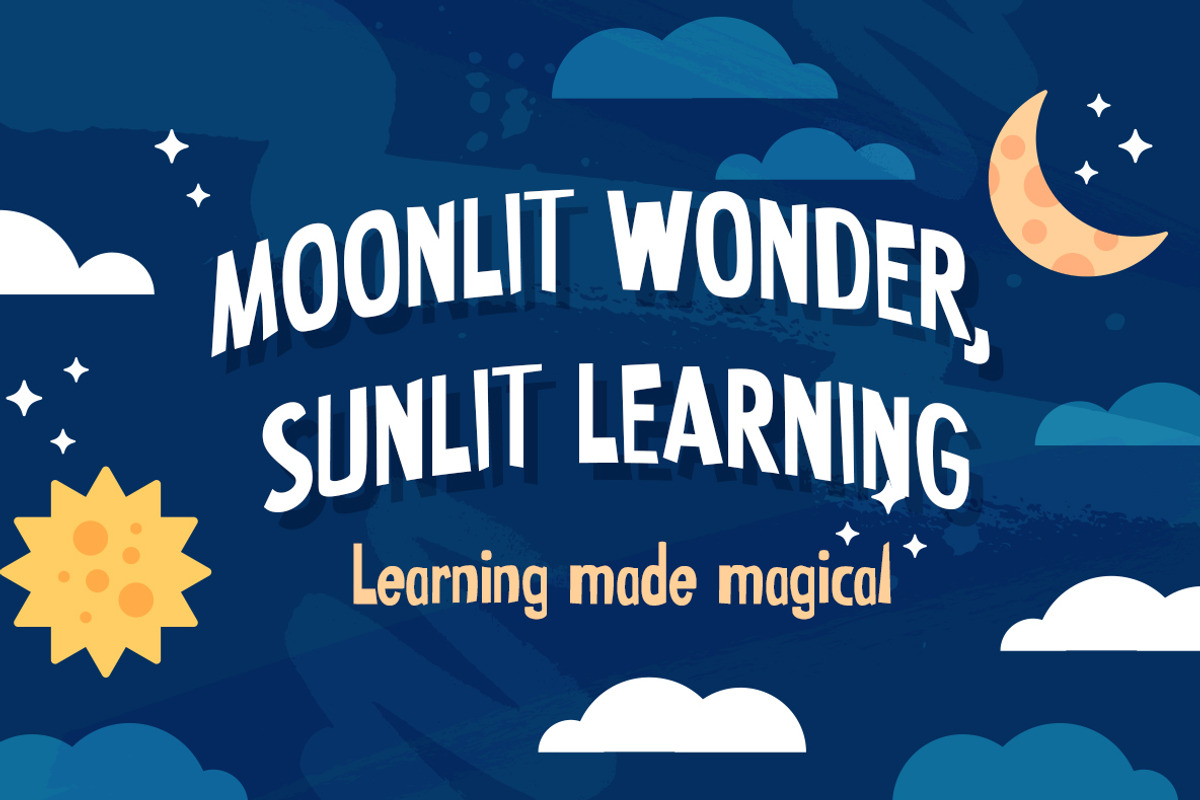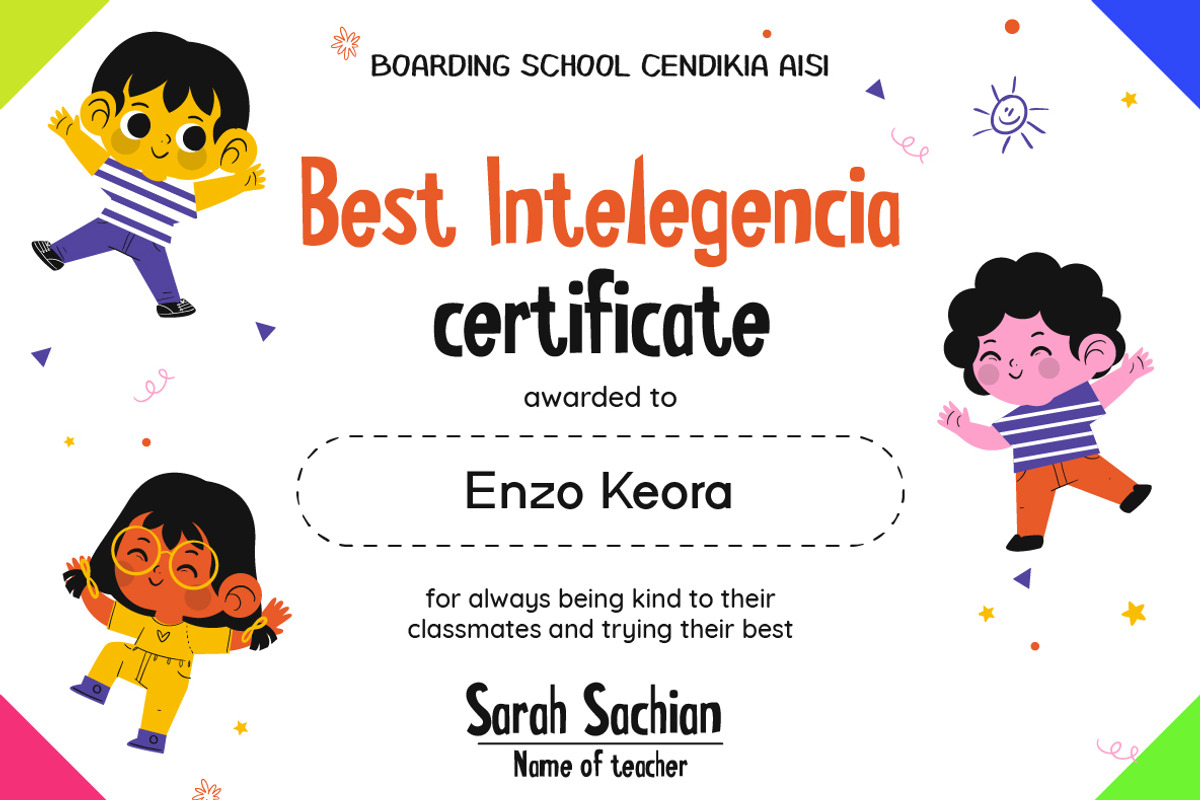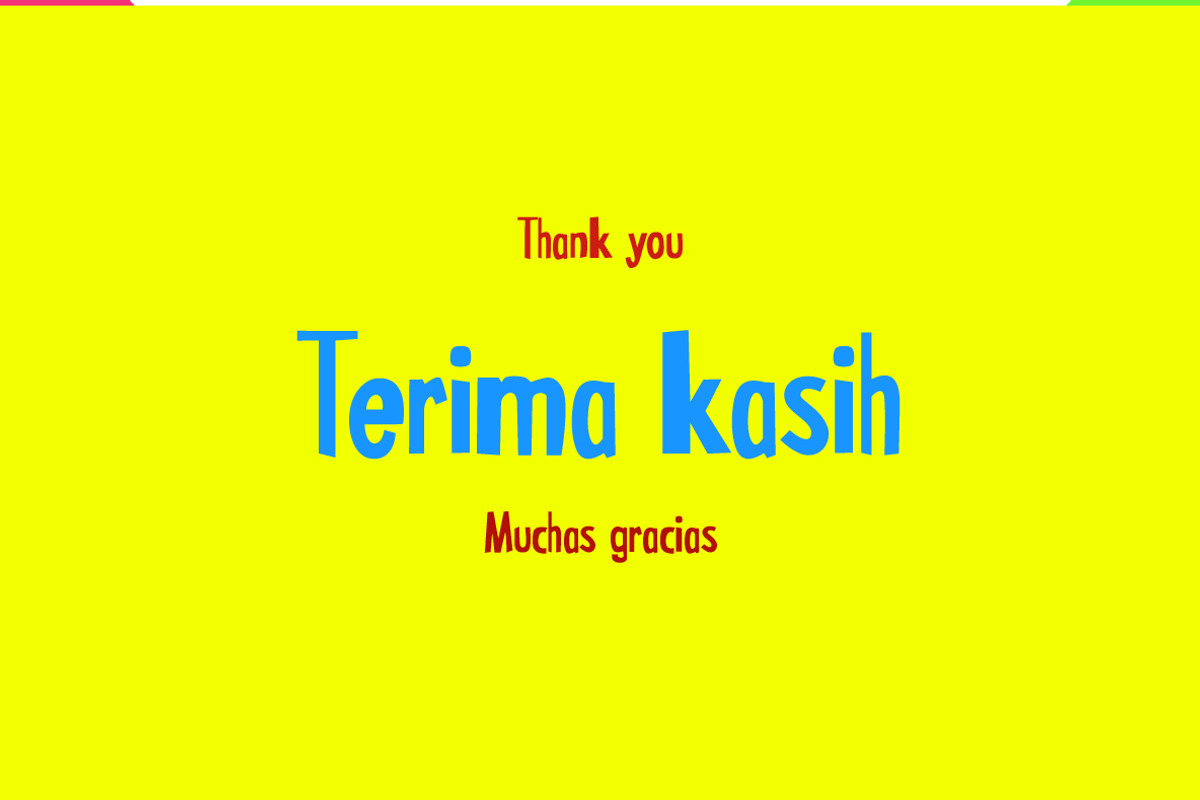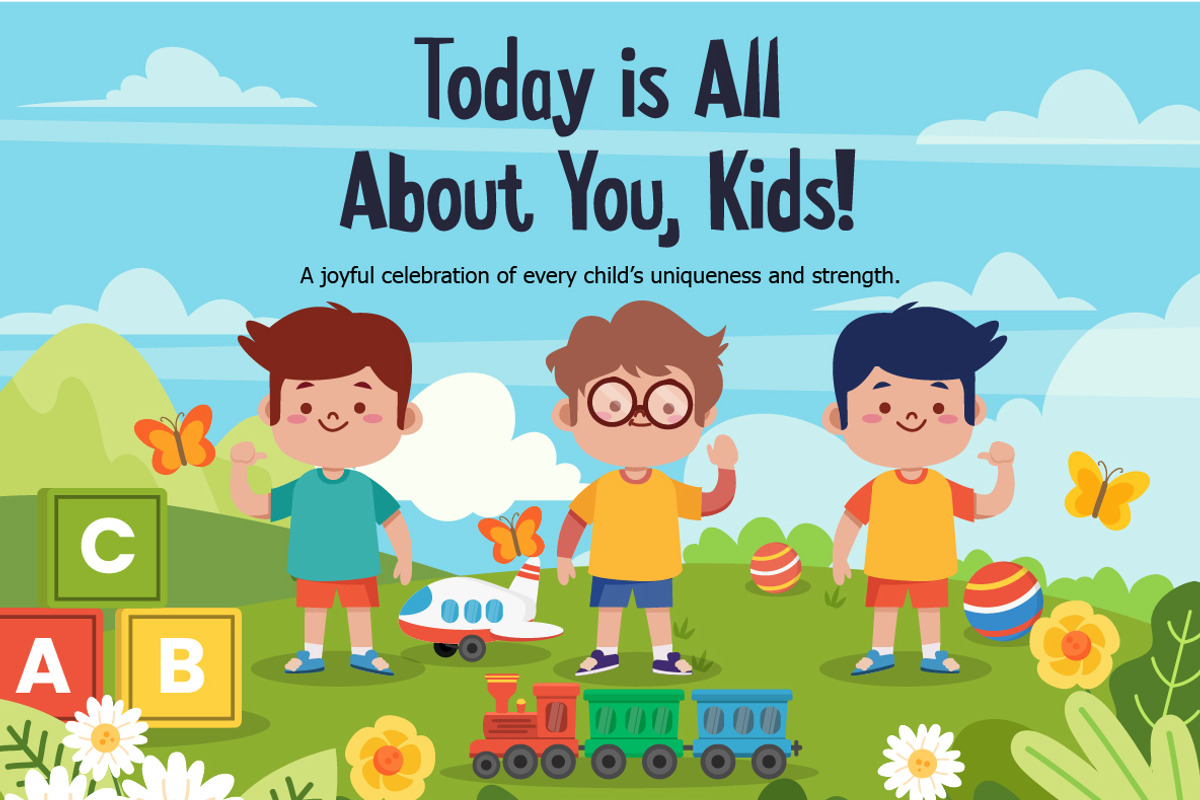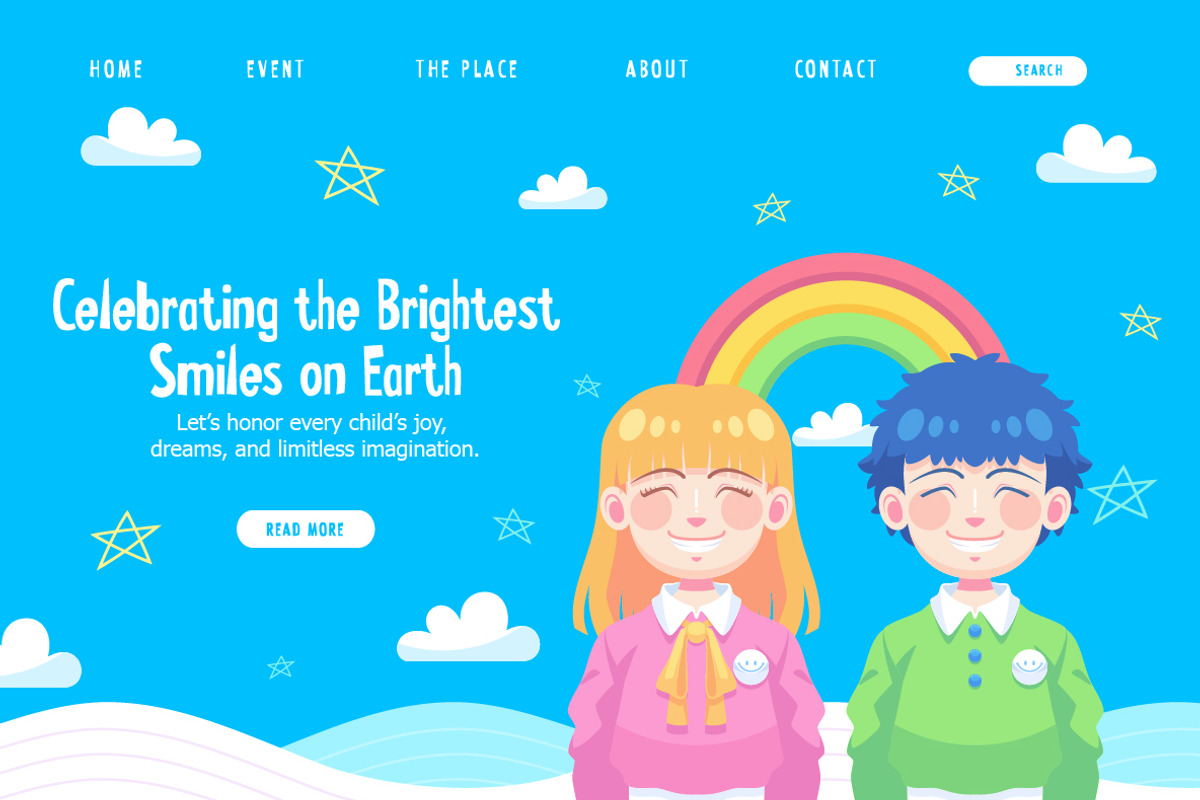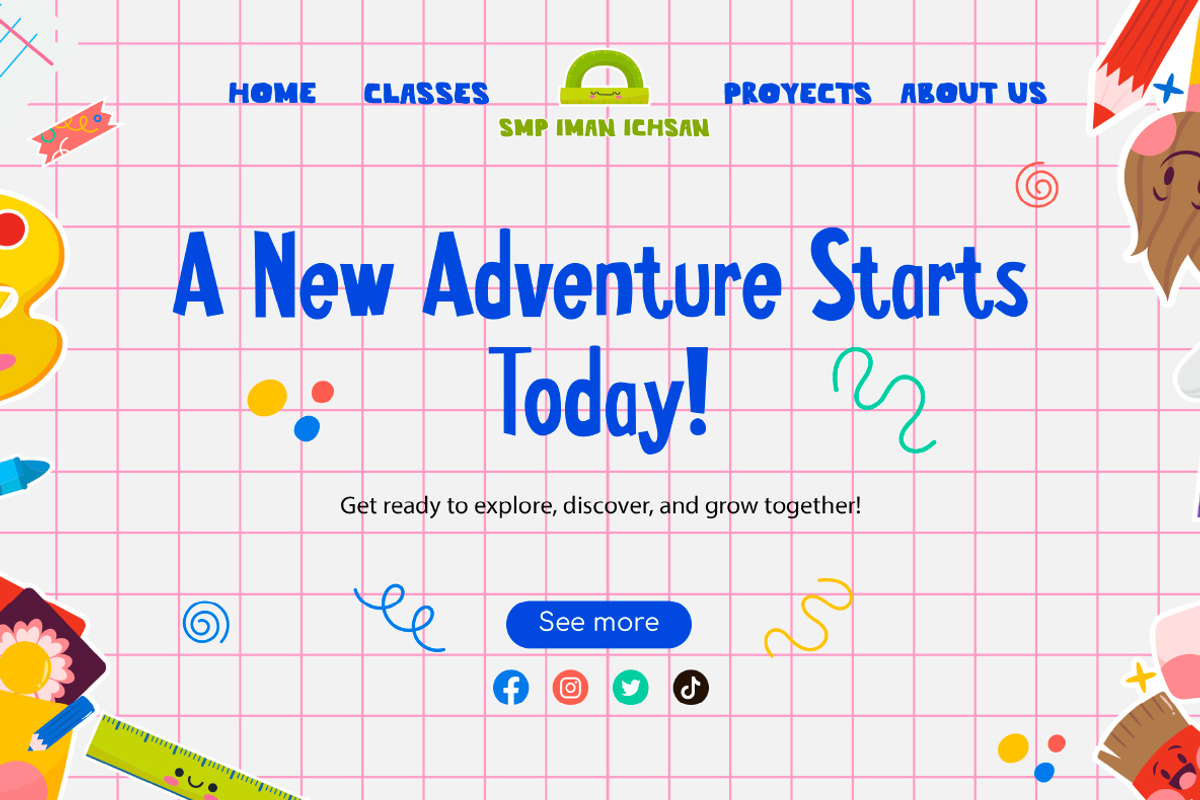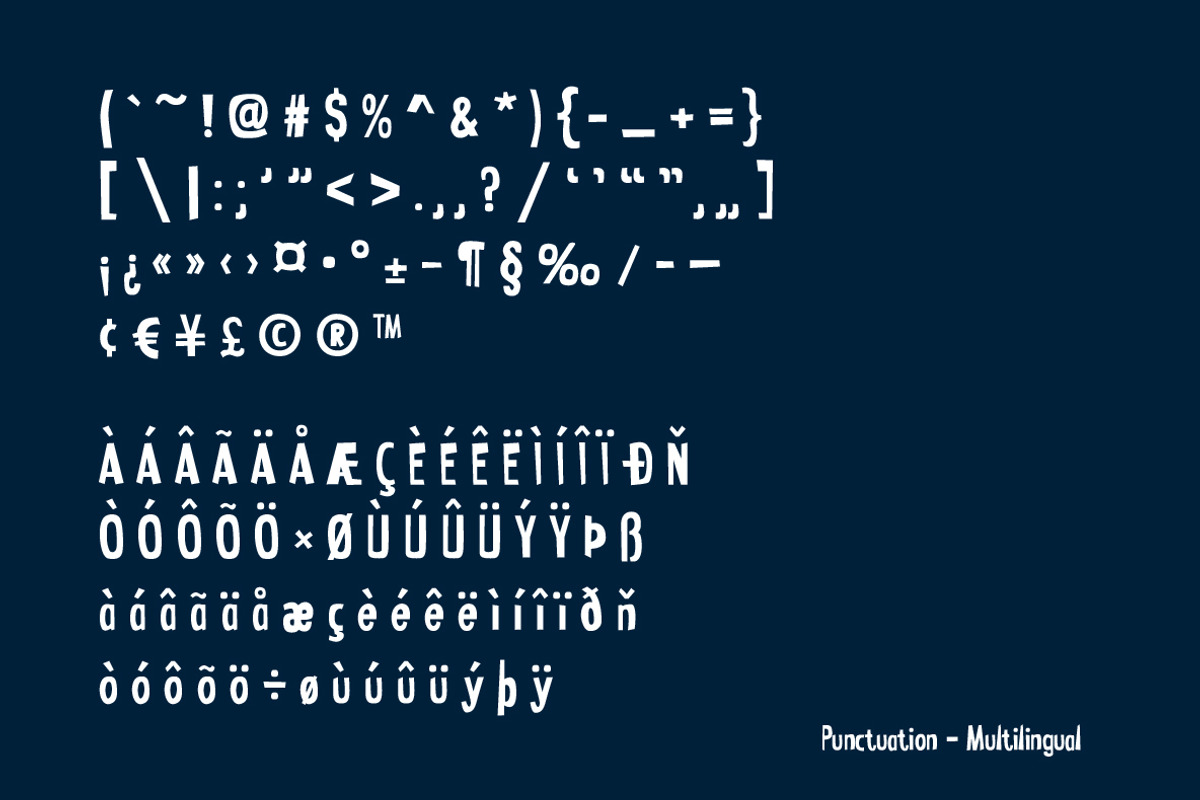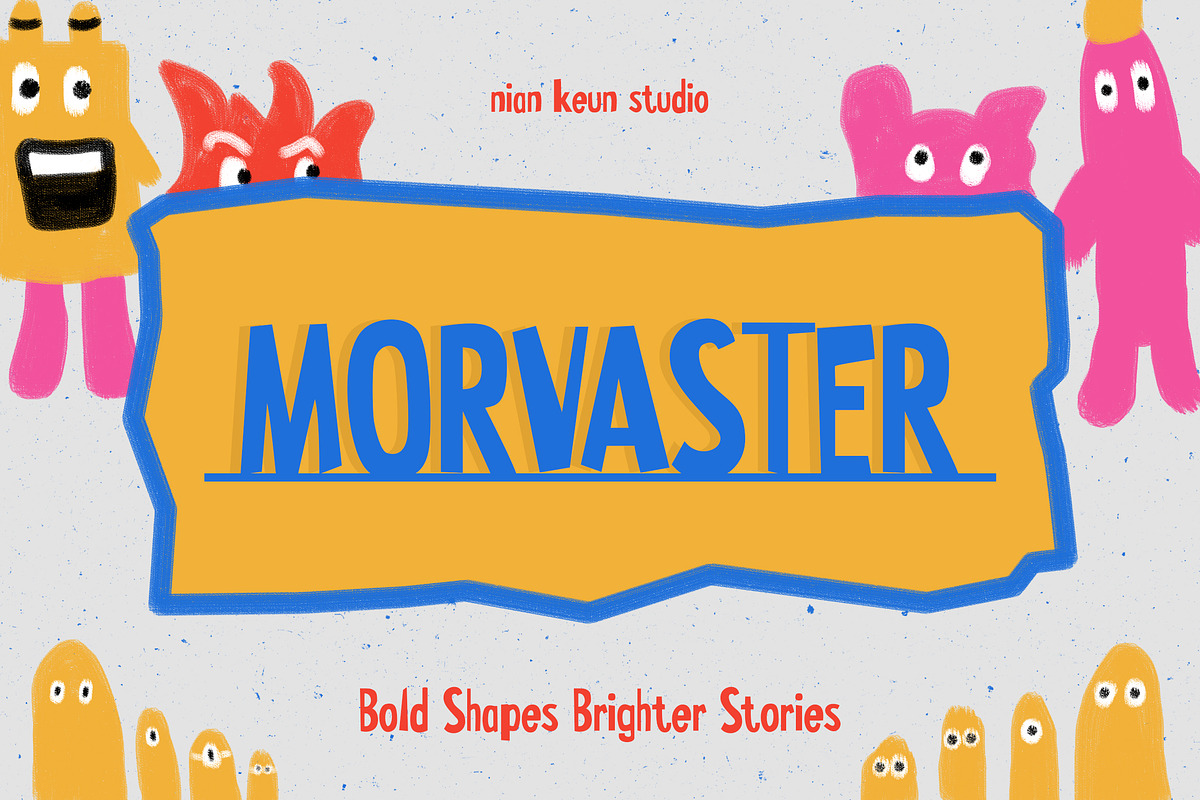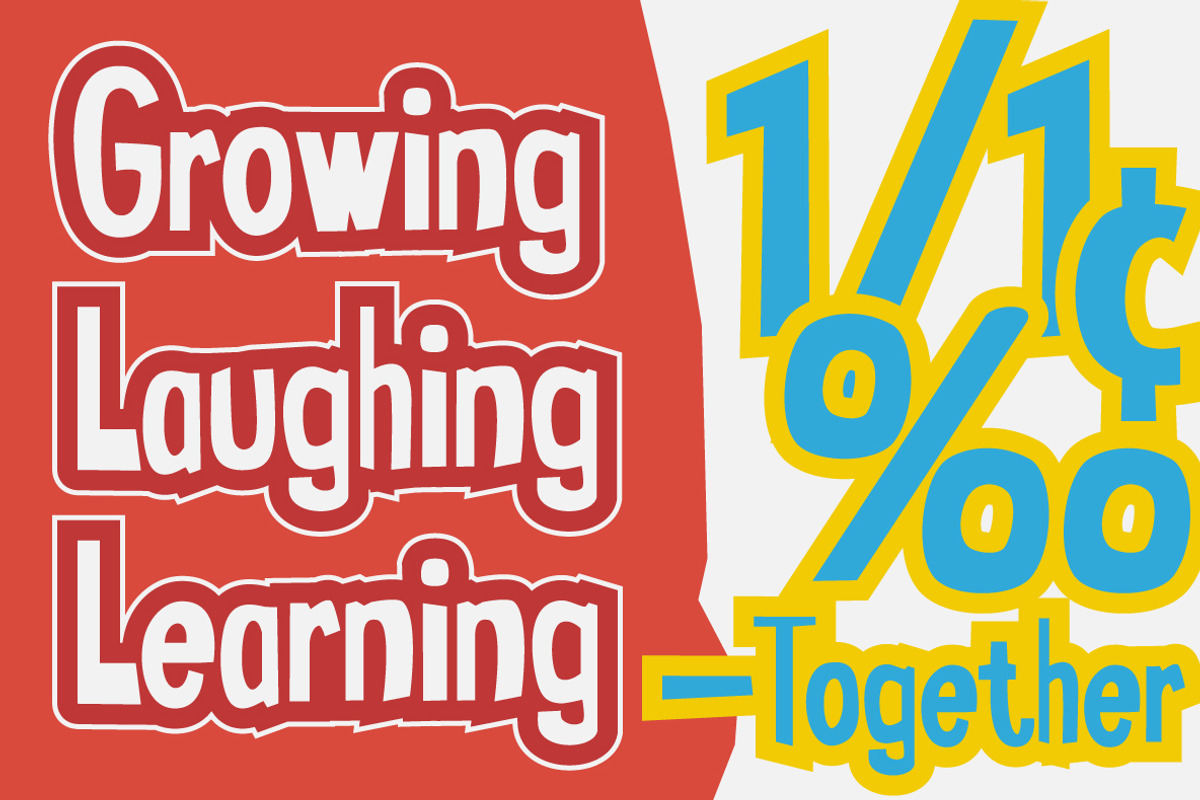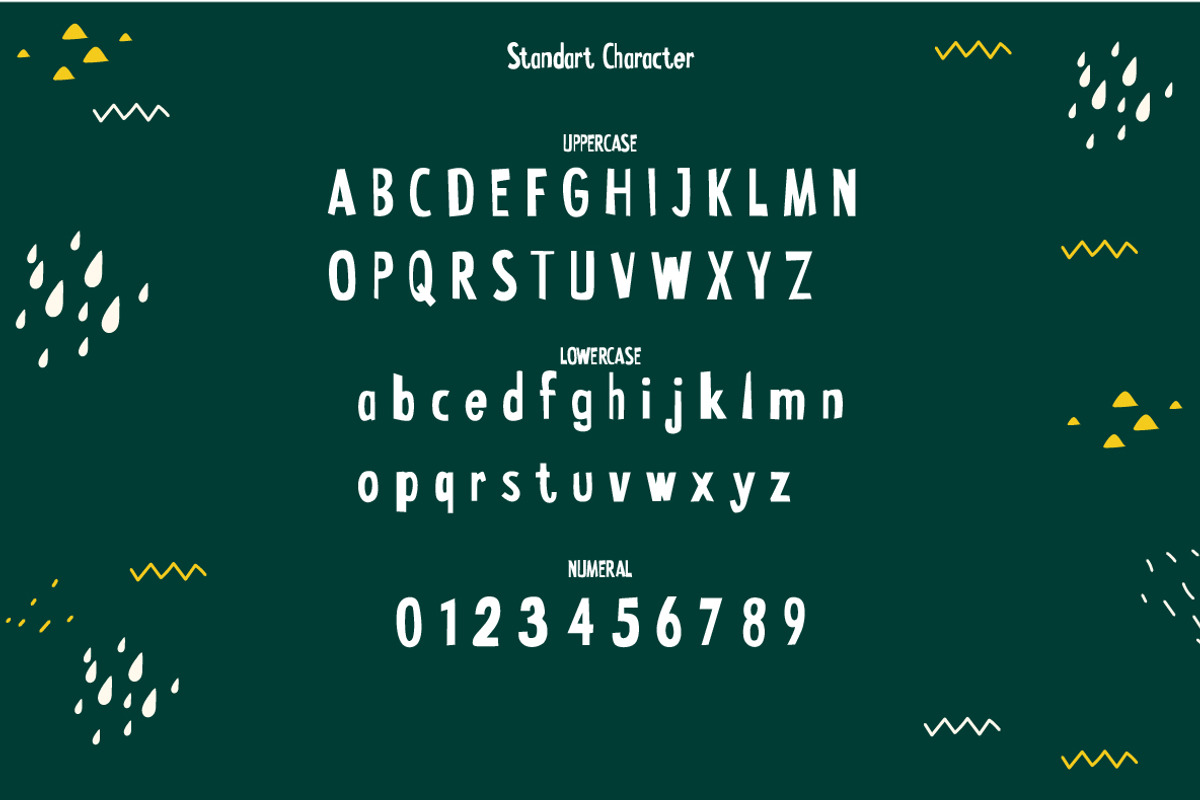
Morvaster - Playfully Imperfact
Morvaster is a bold, child-like display font inspired by the spontaneous magic of early handwriting. Every letter feels alive wobbly, chunky, imperfect, and unapologetically expressive. Its hand-drawn quirks capture the pure imagination of children’s doodles, turning simple shapes into characters with personality.
Crafted with uneven strokes, bouncy proportions, and cartoon-like energy, MORVASTER brings a sense of innocence, humor, and storytelling into any design. It’s the kind of font that sparks joy at first glance bright, playful, and full of mischief. Whether you’re designing for kids, entertainment, branding, or illustrations, this font adds an instant burst of color and fun.
MORVASTER stands out especially well in large sizes, where its funky shapes and friendly charm shine the most. Perfect for projects that want to feel approachable, vibrant, and delightfully imperfect.
- Children’s books & story covers
- Educational posters & learning materials
- Cartoon titles & character branding
- Kids’ product packaging
- Playful logos & mascots
- Creative social media posts
- Stickers, merch, and illustrated graphics
- Bold headings that need personality and fun